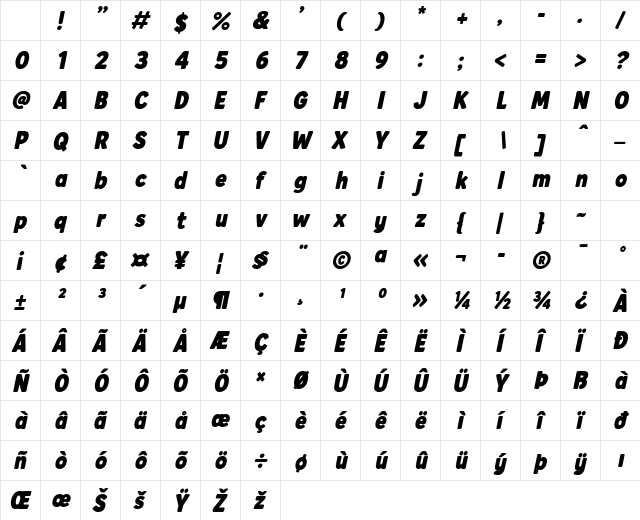
Complete Casual Memories Bold Italic glyph index. Displaying only characters natively supported by Casual Memories Bold Italic font.
Casual Memories is a composed and adaptable typeface that performs quietly and consistently across a wide range of design contexts. The slanted form adds forward momentum and visual energy. Its bold stroke weight gives it real presence on the page.
Pro Tip: Use Casual Memories for emphasis, pull quotes, and subheadings where its slanted energy can add rhythm to the layout.